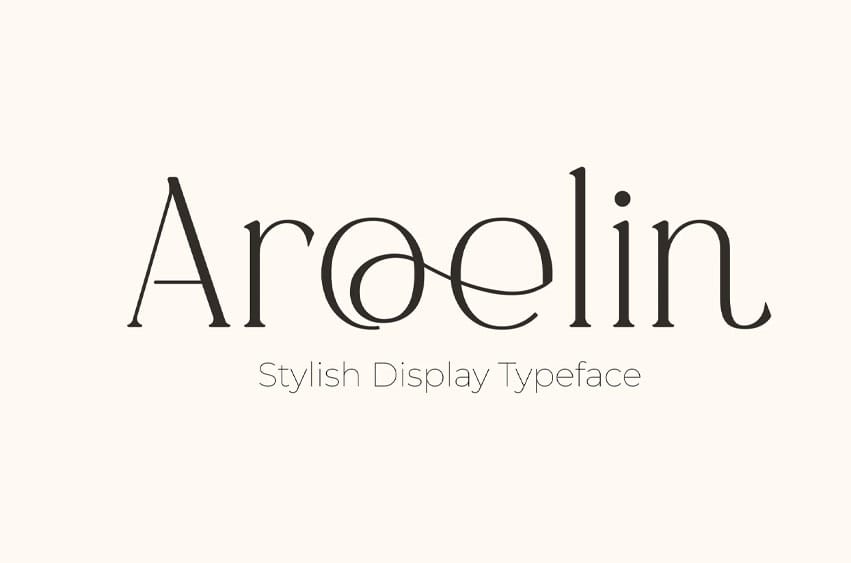
Aroelin Font is a beautifully crafted display typeface that blends sleek modernity with expressive detail. Designed to make a striking impression, Aroelin features refined curves and unique shapes that elevate branding, packaging, and editorial visuals with confident elegance.
Key Features
- Stylish display design with expressive, contemporary elegance
- High contrast strokes for bold impact and visual interest
- Fashion editorials & luxury branding
- Premium packaging & boutique labels
- Artistic posters & modern visual identities
- Elegant wedding invitations & stationery
- Beauty brands, lifestyle campaigns & portfolios
> Aroelin gives your typography a stylish soul — where modern chic meets timeless grace.